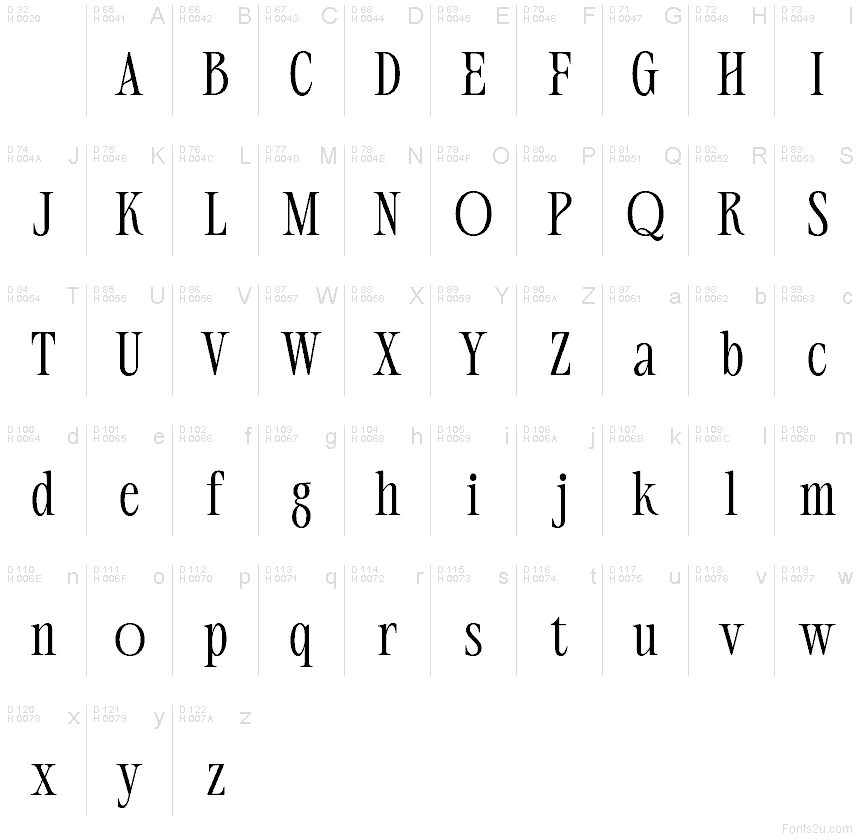
CS Aquire Regular Demo
CS Aquire font is an elegant serif typeface designed by Craft Supply Co. Its condensed letters reflect a classic style with a sophisticated and formal appearance. Gentle curves and traditional elements give it a unique visual charm that compliments every word written.
This free serif font is suitable for book covers, magazine titles, invitations, place cards, posters, infographics, logos, and branding projects. It will work perfectly on online platforms like websites or applications and offline platforms like newspapers or pamphlets.